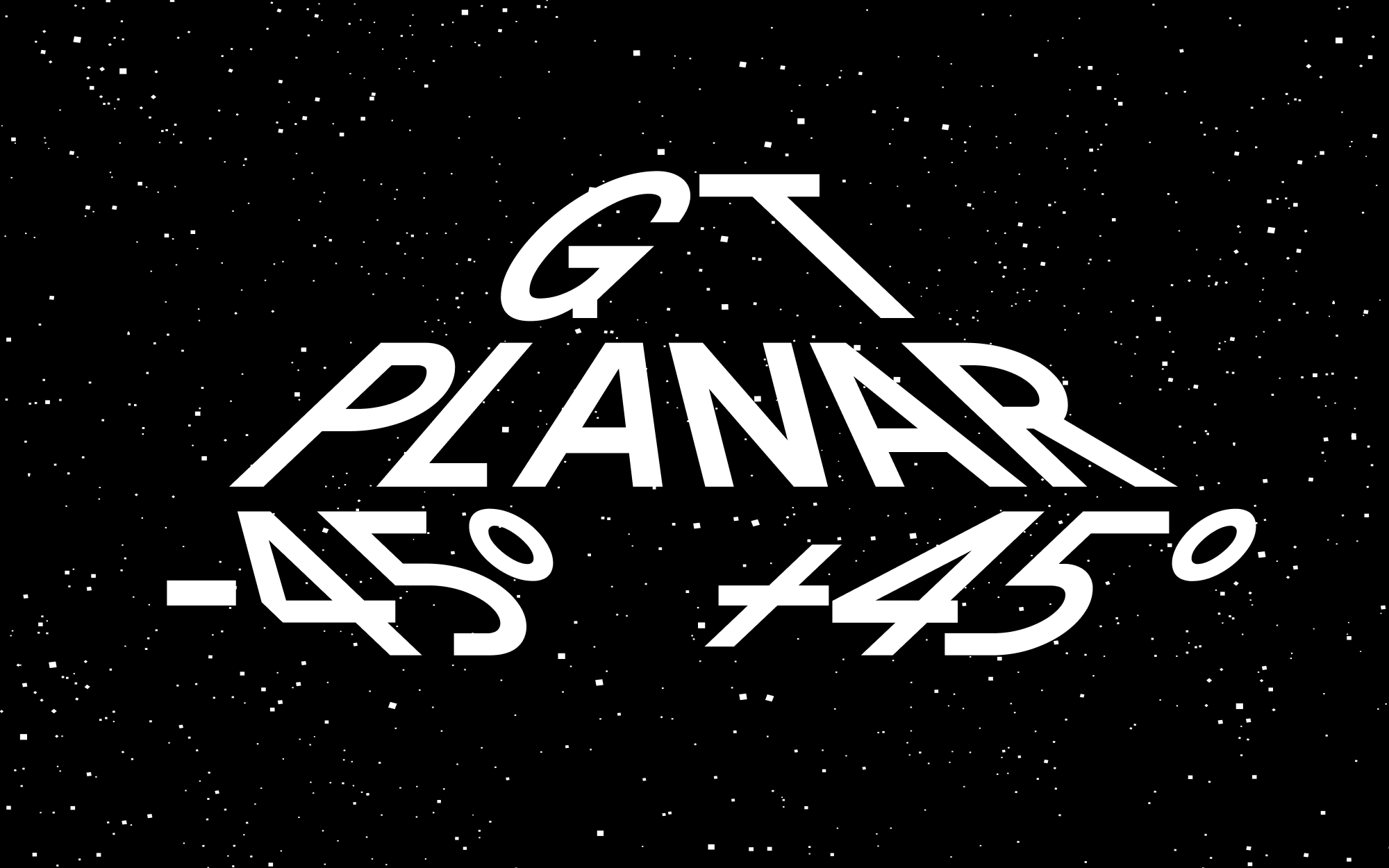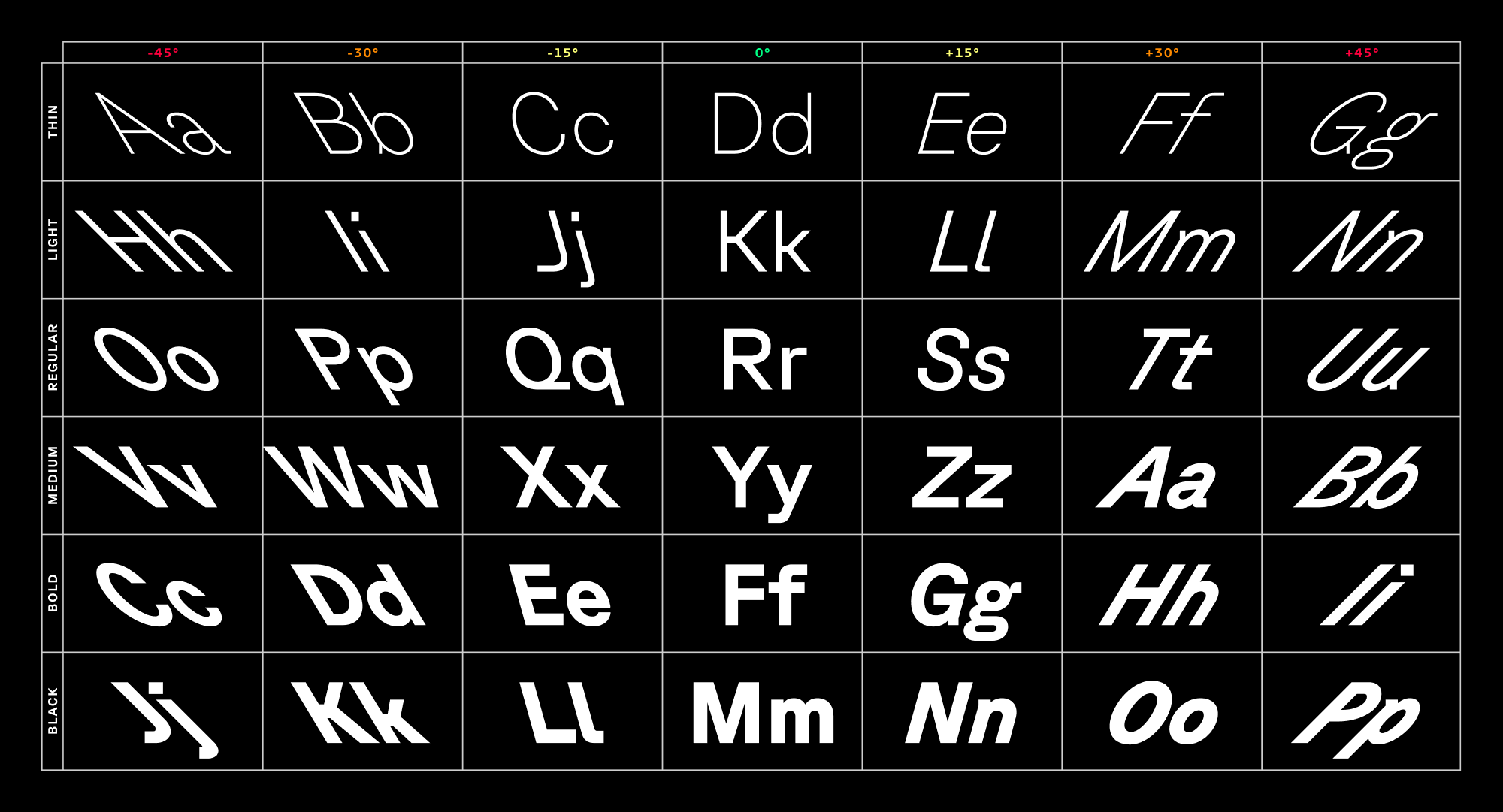
Full-scale expression with Grilli Type
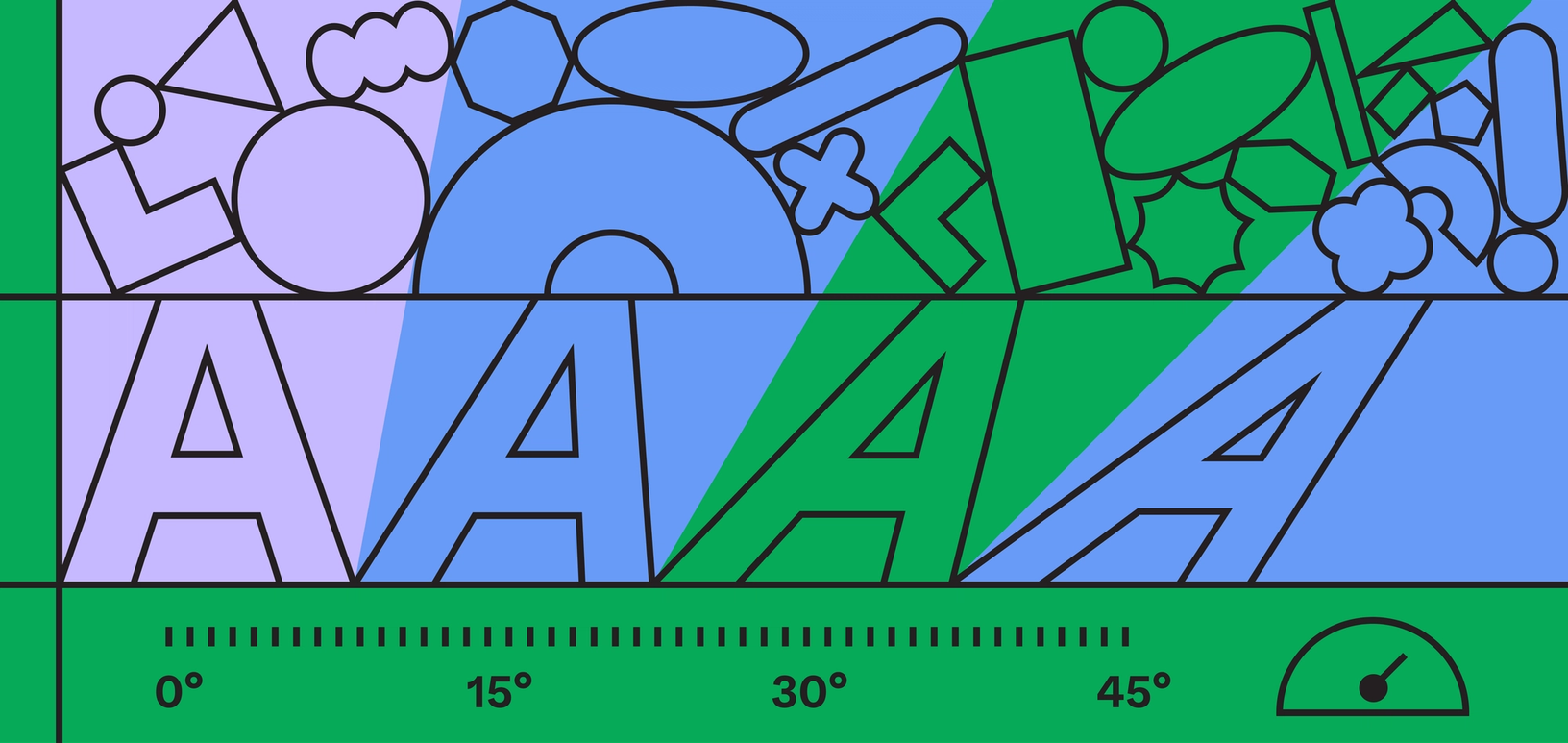
Grilli Type's Theirry Blancpain on the promise and expressive ease of variable fonts.
Type can suffer from scaling problems: When you increase the size of a font, say, from a business card to a billboard (or even from a mobile device to a desktop), you’re also changing the spatial perception between each letter. Lines of copy that you might easily read in a given form factor will start to deform and become illegible in another. Balancing size and legibility often requires minute, exacting adjustments to the kerning (the spacing between individual letters) and tracking (the spacing between groups of letters), so that typography looks consistent and readable. Plus, managing different weights and styles requires multiple files, which can be tricky from a development perspective—more font styles means more code and assets to download, resulting in additional work, potential room for error, and slower loading times.
In short, making sure a font shows up in the best way can require a lot of finessing. That’s why we launched support for variable fonts, single font files that can be manipulated to achieve a variety of expressions by giving designers the ability to adjust type along a series of axes. Need to balance the optical size and weight of a font simultaneously? Go ahead. Want to play with the slant of a font? Have at it.
Variable fonts are also an exciting way to bring more dynamic expression to the web, a subject that Thierry Blancpain, co-founder of Grilli Type, an independent font foundry based in Lucerne and New York City, is passionate about. Grilli Type’s fonts and their accompanying mini sites have pushed the traditional boundaries of type design to enticing new heights. Blancpain asked Figma for variable fonts support back in 2020, and after exchanging DMs with Figma Design Manager Marcin Wichary, he and his team joined Figma's variable fonts beta. We spoke to Blancpain about what it takes to develop a typeface, the importance of dynamic web design, and what variable fonts mean for accessibility and user experience.
After asking Figma to support variable fonts, how does it feel to see it launched?
It feels really good. I think the design community is used to companies ignoring very obvious feature requests for decades. I don’t want to speak for Figma here, but the company’s origin as a user interface tool and as a product design tool probably helped in the decision to develop a feature that benefits the corporate world as well as designers who want to do interesting things for the web.
Grilli has always been an early proponent of variable font development. Why do you think variable fonts are so critical to a modern design practice?
First of all, it's the new standard format, and supporting the overall tool chain for fonts is really important. If the main tools of the trade like Figma don't support those standard formats, it becomes this endless process of trying to find workarounds.
But what’s nice about variable fonts, is that it’s one file with an entire font in it. You can actually use it across the board, and you don't need this version for that tool, this version for some other one. Just based purely on that efficiency, it’s really nice to have. From a broader perspective, it allows for precise typography in a way that previous formats didn't. Some people might not need it, but if you do need it, it's super useful, especially when creating designs that can be converted by developers into actual code.
We have [created] variable font websites without being able to use variable fonts in Figma. It works for me, personally, because I'm a developer and a designer, but in a more traditional environment where designers and developers are separate, it doesn't work.
Why do you think variable fonts are such an empowering tool for designer-developer collaboration?
Understandably, developers don’t want to complicate their lives for something that they might not have a deep interest in. I think the nice thing about variable fonts is that it offers a little bit for everyone. Developers love the idea that they only have to use a single font file for the entire family, and that's super helpful to them: it makes updating things easier, makes keeping the code clean easier, etc.
Designers love the ability to pick their specific weights, and really fine tune typography in terms of optical size. But they’re also able to use really fun effects like in GT Maru Mega, where you can have this very exuberant typeface and still make it work at really small sizes. The other part is animation. I think the web will become more and more of a moving experience. A purely static site often feels very old school nowadays.
How do you think variable fonts move us towards a more dynamic version of web design?
Typography can be expressive beyond just providing information. And sometimes that's just going from regular to bold if a user hovers over something. I think that dynamism just improves the experience, but it can also go further.
I think our mini site for GT Flexa is a really good example of where we see that going. Our mini sites generally try to push web design, and we want to show that our typefaces can lead the way.
Our friends at XXIX made a website that was the first use of GT Flexa in the wild. The type appears to breathe very slightly in and out—it sort of creates this calming experience with a certain rhythm to it. I think more and more, we're going to see expressive experiences like that, where type supports the overall brand value and how the brand feels on the web. Every website is a chance to communicate, and not using type to its fullest to do that job is missing something.
Designers are going to feel empowered to use these tools with their own judgment, but users are also going to be free to challenge that. I think that's going to be really cool when people start feeling empowered to question the type designer—each use is a little different and you can't really know ahead of time how a type piece is going to be used in a particular environment. Those kinds of questions are going to be really interesting over the next few years.